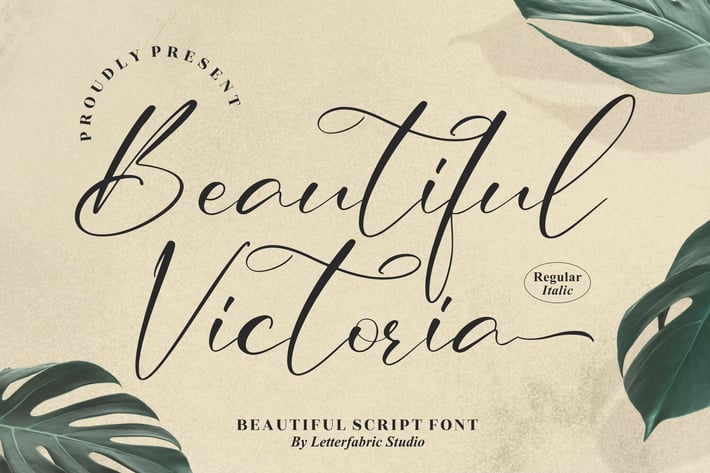
Victoria Script Font
Victoria Script Font is a graceful and romantic handwritten typeface designed to bring natural beauty and sophistication to your creative projects. With its flowing lines, elegant swashes, and balanced contrast, this font captures the essence of modern calligraphy — perfect for adding a personal, luxurious feel to your designs.
Stylish handwritten script with smooth and natural flow
Elegant ligatures and alternates for organic handwriting texture
Readable and versatile across print and digital projects
Includes Regular and Italic versions for creative flexibility
Wedding invitations and stationery
Signature logos and personal branding
Editorial and lifestyle design projects
Product packaging and boutique labels
Elegant social media graphics
Delicate, romantic, and beautifully flowing — Victoria Script Font* turns every word into a touch of timeless elegance.